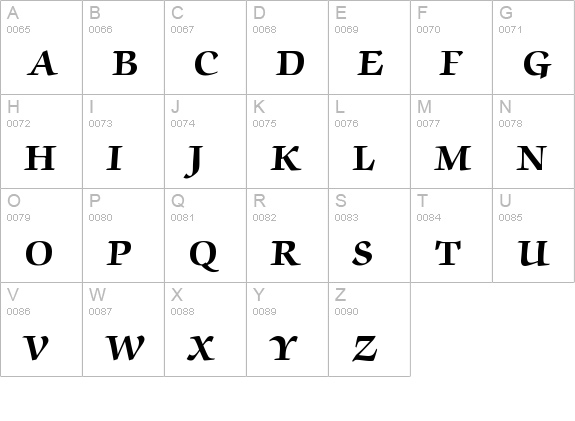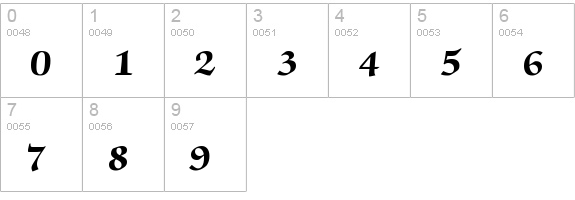
QTChanceryType Bold Font Details
QTChanceryType Bold is a strong, high-contrast variant in the QTChanceryType typeface family \xE2\x80\x94 well suited to headlines, attention-grabbing titles, and strong calls-to-action.
The QTChanceryType Bold font is a stunning and bold typeface that exudes elegance and sophistication. Its unique design combines classic calligraphic elements with a modern twist, making it a perfect choice for various design projects. With its strong and distinctive letterforms, this font commands attention and adds a touch of luxury to any design. Its bold strokes and intricate details create a sense of power and authority, making it ideal for headlines, logos, and branding materials. One of the standout features of this font is its versatility. It can be used in a wide range of design applications, from formal invitations and certificates to packaging and advertising materials. Its boldness ensures maximum impact, while its elegant curves add a touch of refinement. What makes the QTChanceryType Bold font even more appealing is that it is freely available to download at FontsMarket.com. This means that designers and creatives can easily access this stunning typeface without any cost or hassle. Its availability as a free download opens up endless possibilities for designers looking to add a touch of sophistication to their projects. Whether you're designing a wedding invitation or creating a luxurious brand identity, the QTChanceryType Bold font is a must-have in your font collection. Its bold and elegant design, coupled with its availability as a free download, makes it a valuable asset for any designer or creative individual.